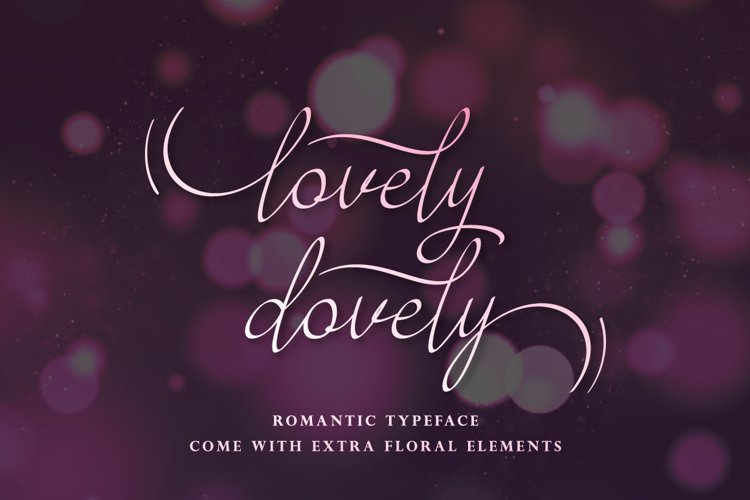
Lovely Dovely is a font that has a romantic and calming theme, we made this font inspired by the beauty of love in spring,
It is perfect for branding projects, logos, wedding designs, social media posts, advertisements, product packaging, product designs, label, photography, watermark, invitation, stationery and any projects that requires a handwritten taste.
- Stylistic Alternates and swash
- Uppercase and Lowercase letters
- Numbering and Punctuations